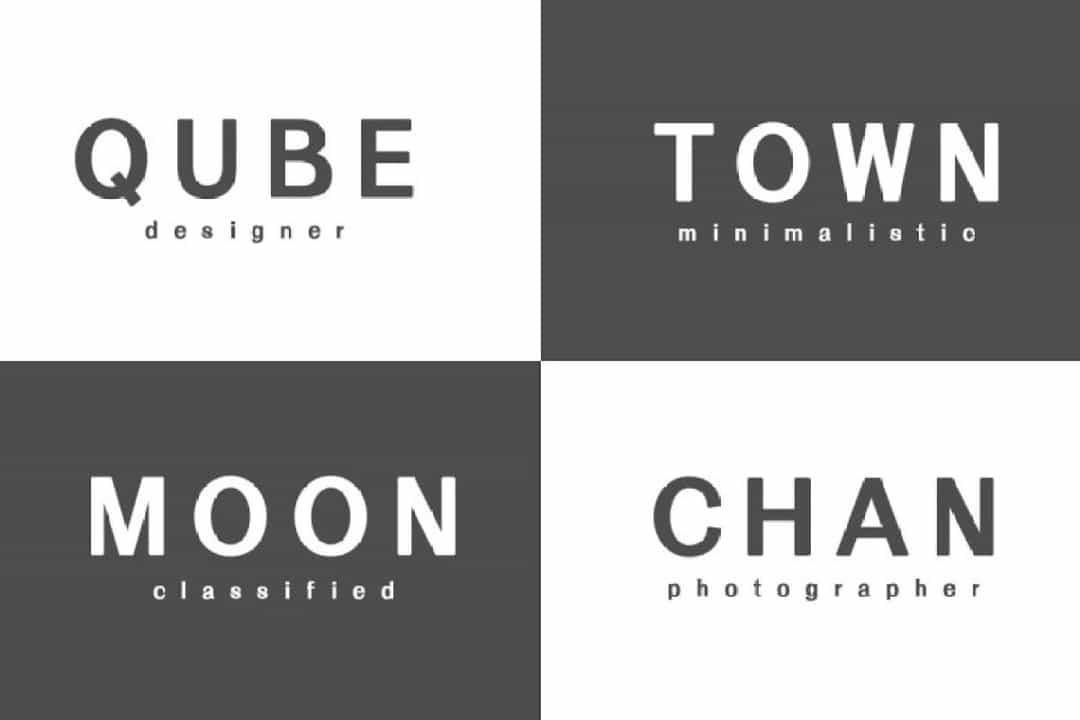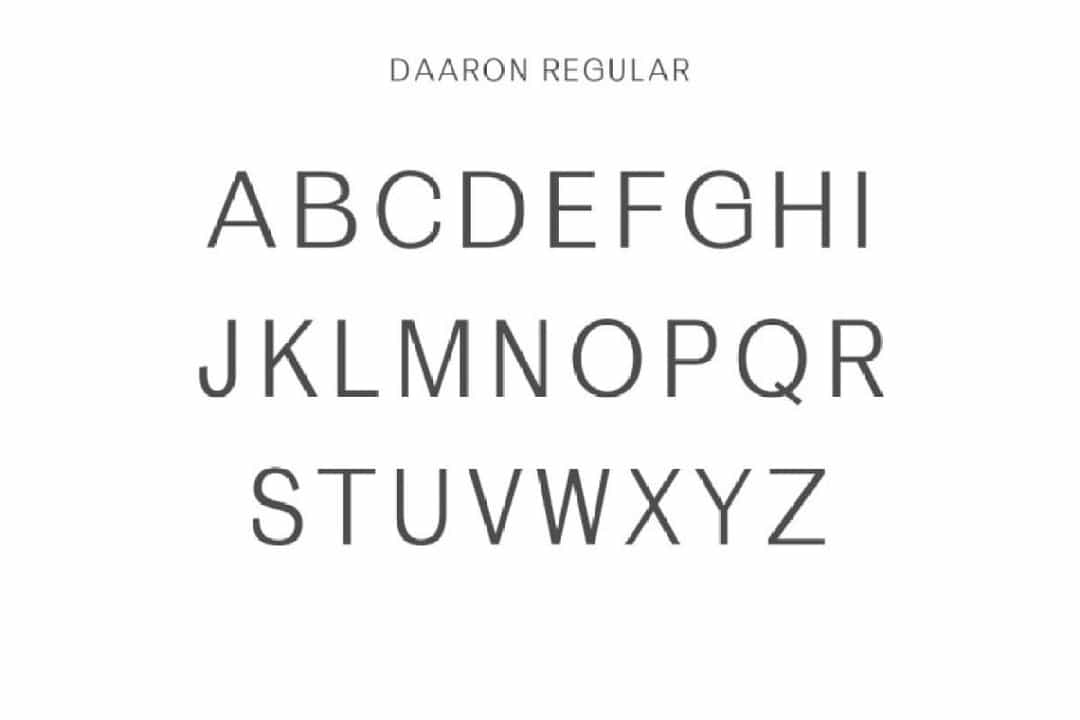
Daaron is a fresh, clean and simple sans serif font with three different weights; bold, round and regular. Furthermore, this font includes all the fundamental characters and symbols, and it is suitable for multilingual usage.